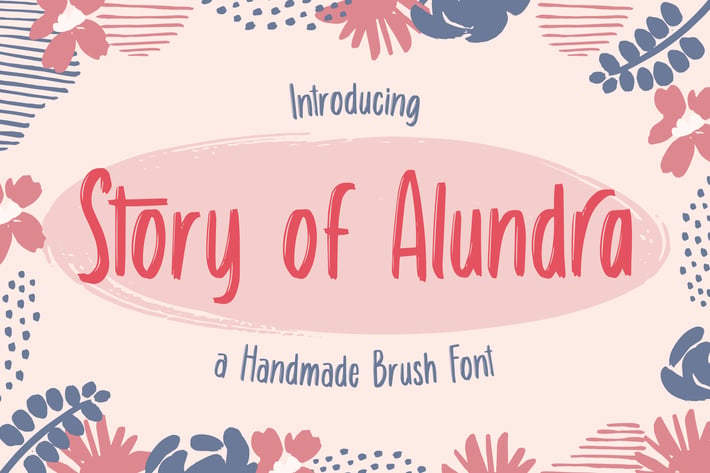
Story of Alundra – Cute Brush Font
Story of Alundra is a handmade brush display font. It has a cute yet cheerful feel. No matter the topic, this font will be an incredible asset to your fonts’ library, as it has the potential to elevate any creation.